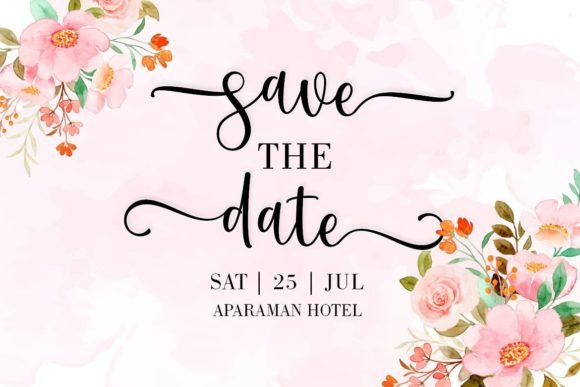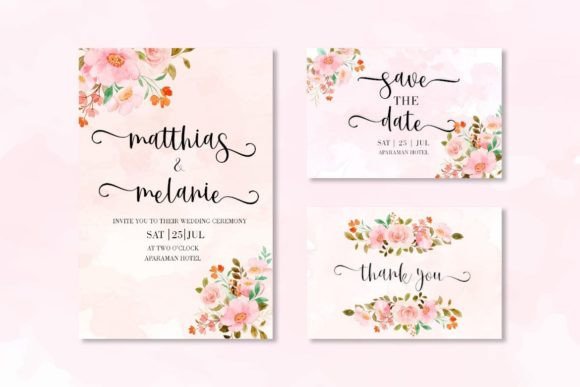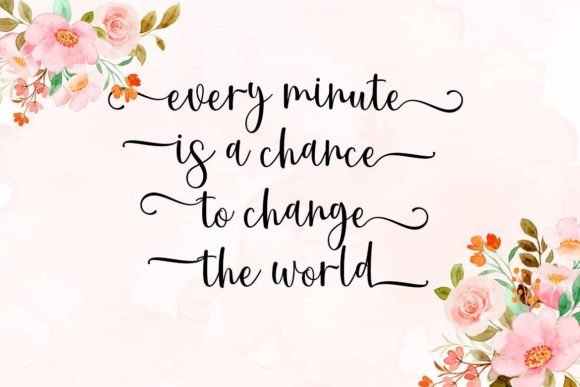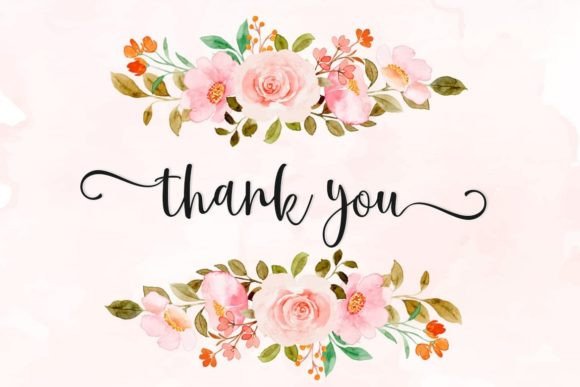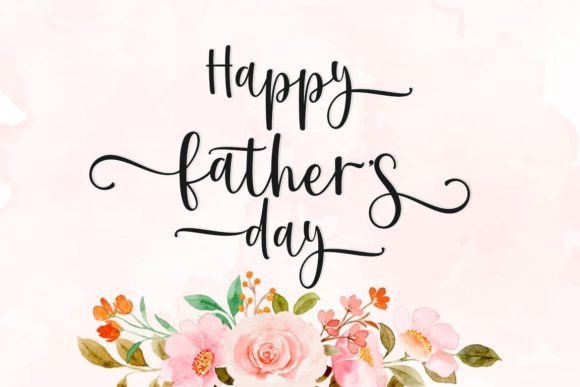
“First Time: Where Romance Meets Contemporary Elegance in Handwritten Perfection
Introducing First Time, a handwritten font meticulously crafted to blend the allure of romance with contemporary elegance. Its delicate form strikes the perfect balance – not too thin, not too thick – offering a harmonious and varied appearance that enhances the beauty of your projects. Designed with impeccable form, First Time is ideal for creating exquisite wedding invitations, heartfelt cards, and any design that craves a romantic, personalized touch.
The charm of First Time lies in its ability to evoke a sense of intimacy and warmth. Its handwritten strokes carry an air of authenticity, making every letter feel like a personal gesture. Imagine your wedding invitations graced by First Time’s gentle curves, setting the stage for a love-filled celebration. Picture your cards adorned with its romantic touch, conveying emotions in every stroke. With First Time, your designs become more than just visuals; they become expressions of love, capturing the essence of your heartfelt message.
One of the standout features of First Time is its versatility. Its balanced and varied letterforms make it a versatile choice for a wide range of design applications. Whether you’re crafting elegant wedding stationery, designing custom cards, or adding a romantic touch to digital creations, First Time elevates your projects, making them unforgettable and deeply personal.
Moreover, First Time is more than just a font; it’s an invitation to creativity. Its PUA encoding grants you easy access to an array of amazing glyphs and ligatures, empowering you to customize your designs with ease and precision. With First Time, your creativity knows no bounds, allowing you to craft unique and enchanting visuals effortlessly.
In a world where personalized touches make all the difference, First Time helps you create a lasting impression. It speaks the language of romance and contemporary elegance, resonating with those who appreciate the beauty of handwritten artistry. Whether you’re designing for the most special day of your life or crafting heartfelt messages for your loved ones, First Time becomes your trusted companion, guiding you toward design excellence.
So, why settle for ordinary when you can embrace the extraordinary with First Time? Let this handwritten font be the muse for your romantic expressions, and watch as your projects come to life with elegance and heartfelt sincerity. Let your creativity flow, and let First Time be the brushstroke that paints your ideas into memorable masterpieces, leaving a lasting impression on the hearts of your audience.”